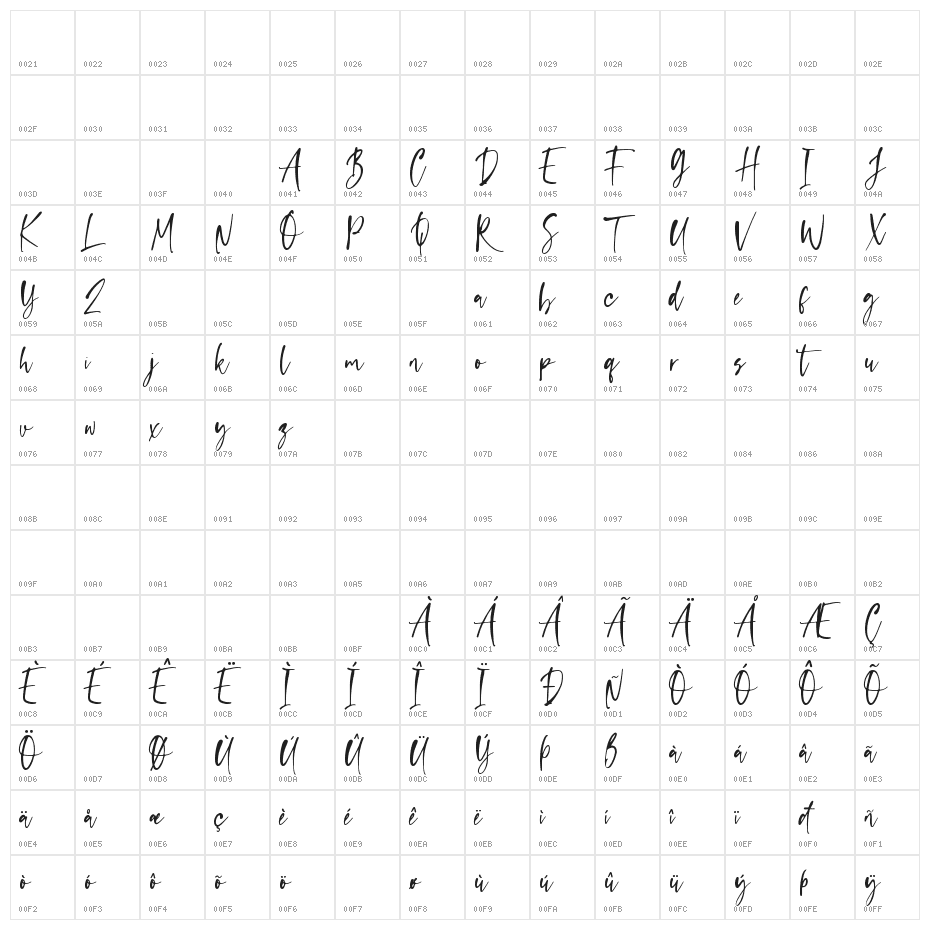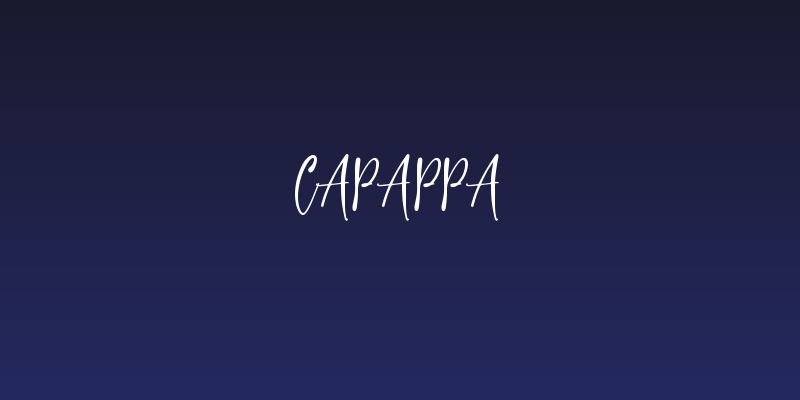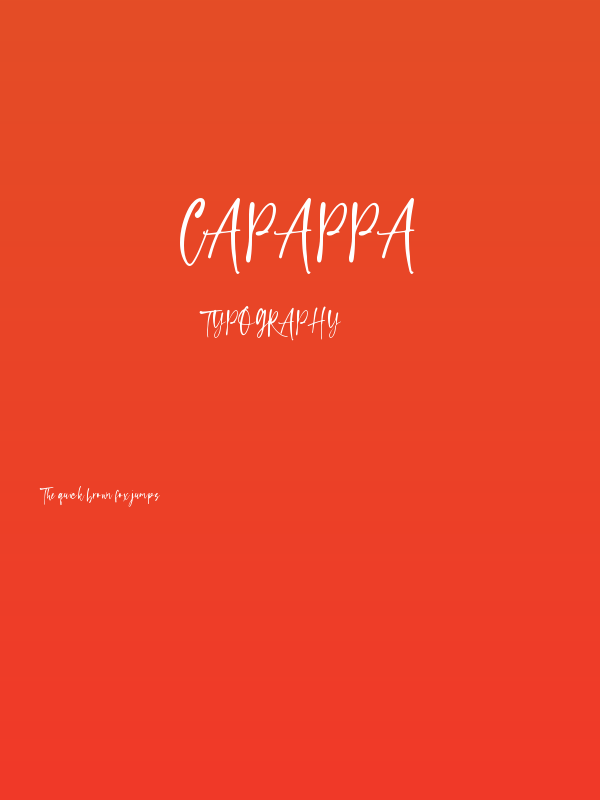
capappa Font
capappa Description
This font features a lively and expressive handwritten style, characterized by its fluid and dynamic strokes. The uppercase letters are tall and slightly narrow, with a playful yet elegant flair. The lowercase letters maintain a consistent flow, with some letters featuring unique loops and curves that add personality. The overall appearance is casual yet sophisticated, making it suitable for creative and artistic projects. The font's organic feel is enhanced by its varying stroke thickness, which adds a sense of movement and energy.
| Proposed Projects | Ideal for wedding invitations, greeting cards, branding, and social media graphics. |